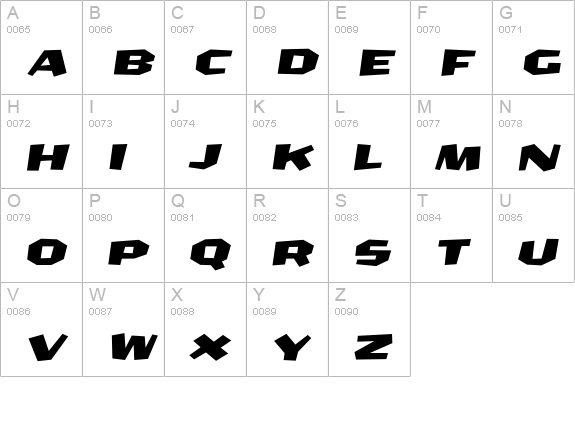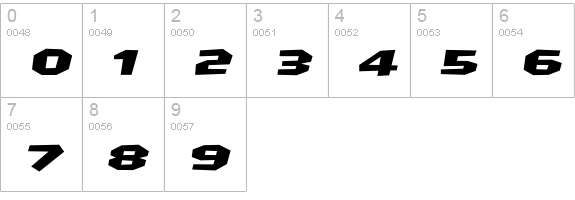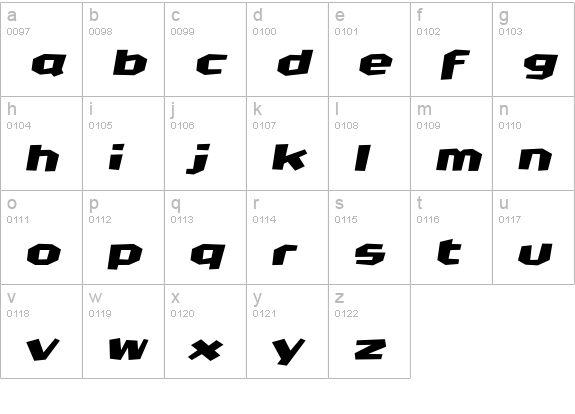
CrashBangWallop-MedItalic Font Details
Introducing CrashBangWallop-MedItalic font, a striking display typeface that combines modern edginess with a touch of elegance. This font is perfect for making a bold statement in your designs, whether it be for posters, logos, or branding projects. The sleek and stylish letterforms of CrashBangWallop-MedItalic will grab attention and leave a lasting impression. What's even better is that CrashBangWallop-MedItalic font is available for free download at FontsMarket.com. This means you can easily add this eye-catching font to your collection without any cost. Don't miss out on the opportunity to enhance your creative projects with the unique flair of CrashBangWallop-MedItalic font. Download it now and let your designs shine!